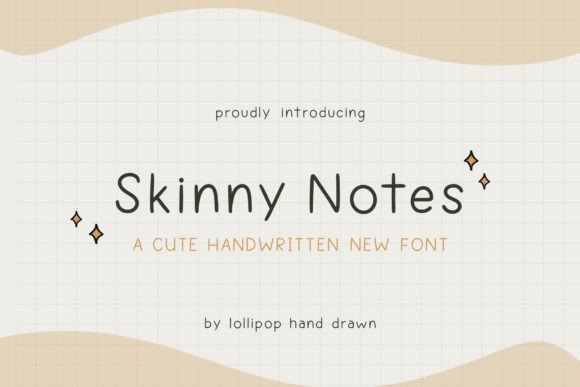
Looking for the best font for Cricut engraving? Look no further than Skinny Notes Font! This amazing font family was created by Lollipop Hand Drawn, and it is the perfect solution for anyone looking for a fun and easy-to-read font. Whether you are a student, a professional, or just someone who loves to take digital notes, Skinny Notes is the perfect choice for you.
With its simple and playful characters, Skinny Notes is sure to make your notes stand out. The script font family is perfect for adding a touch of creativity to your digital documents, and it is ideal for anyone looking to make their work more eye-catching and engaging. The font is easy to use and read, making it perfect for anyone, regardless of their level of expertise.
One of the best things about Skinny Notes is that it is incredibly versatile. Whether you are creating a presentation, designing a website, or simply writing an email, this font will make your work look amazing. With its stylish design and easy-to-read characters, it is the perfect font for anyone who wants to add a touch of elegance to their work.